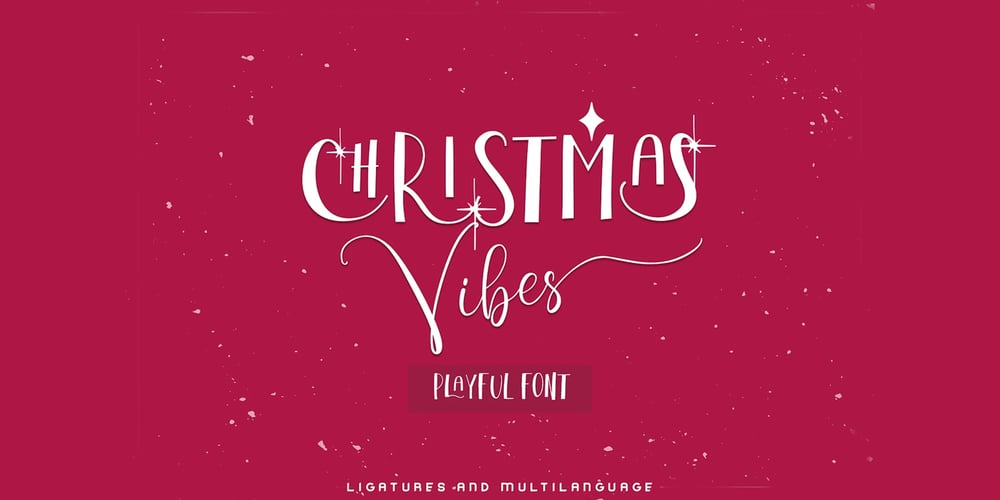
Christmas Vibes Font Family was designed by Oksana Shudegova and published by OKSHUtypeCO. Christmas Vibes contains 1 styles and family package options. ChristmasVibes – a new fresh handmade font.Very suitable for greeting cards, branding materials, business cards, quotes, posters, and more!This font are perfect for wedding postcard. Or you can create perfect and unique design of your logo, blog, stationery, marketing, magazines and more :)Features :UpperCase & Lowercase Numerals & Punctuations Multilingualcharacters(AÀÁÂÃÄÅCÇDÐEÈÉÊËIÌÍÎÏNÑOØÒÓÔÕÖUÙÜÚÛWYÝŸŸ ÆŒßÞàáâãäåæçèéêëìíîïðñòóôõöøùúûüýÿ) Alternates Ligatures Thank YOU!!!